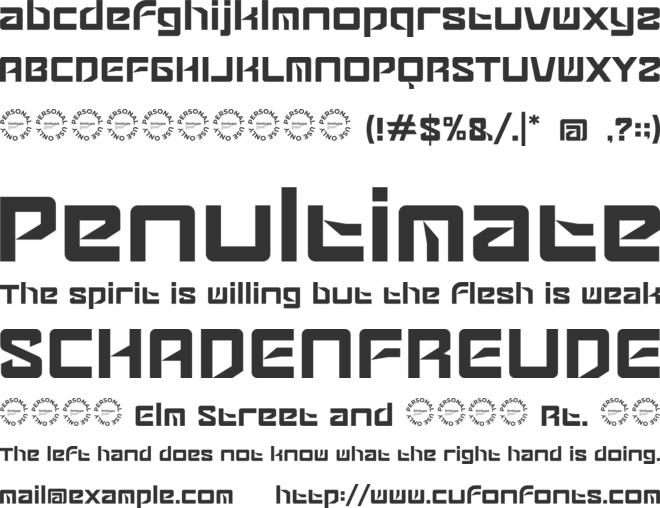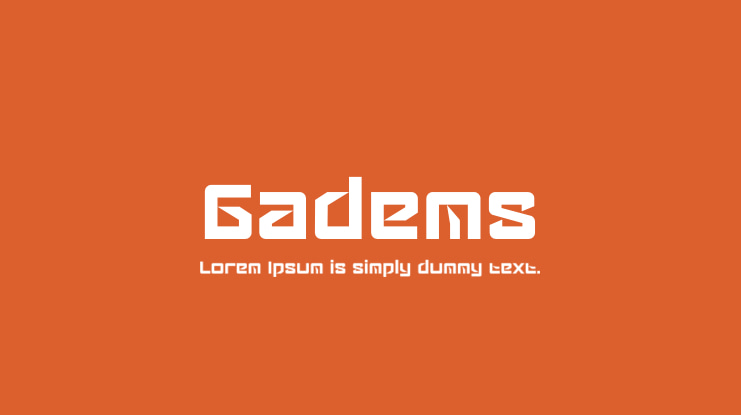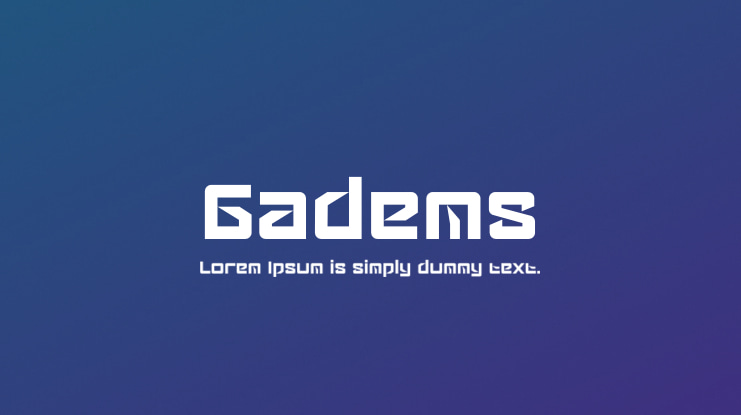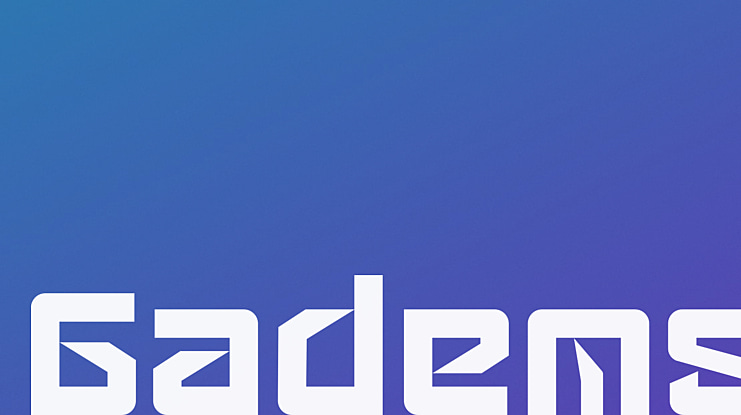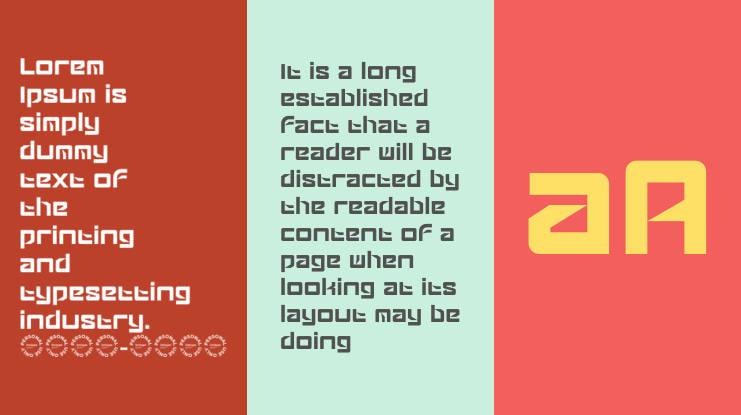
Gadems Font
Gadems is a typeface designed to display futuristic characteristics. It has a sleek and modern appearance with a unique shape. The design of Gadems is inspired by the ever-evolving and experimental field of modern digital typography, which influences its distinct style.
Gadems includes:
- Uppercase letters
- Lowercase letters
- Numbers
- Symbols
- Several multilingual options